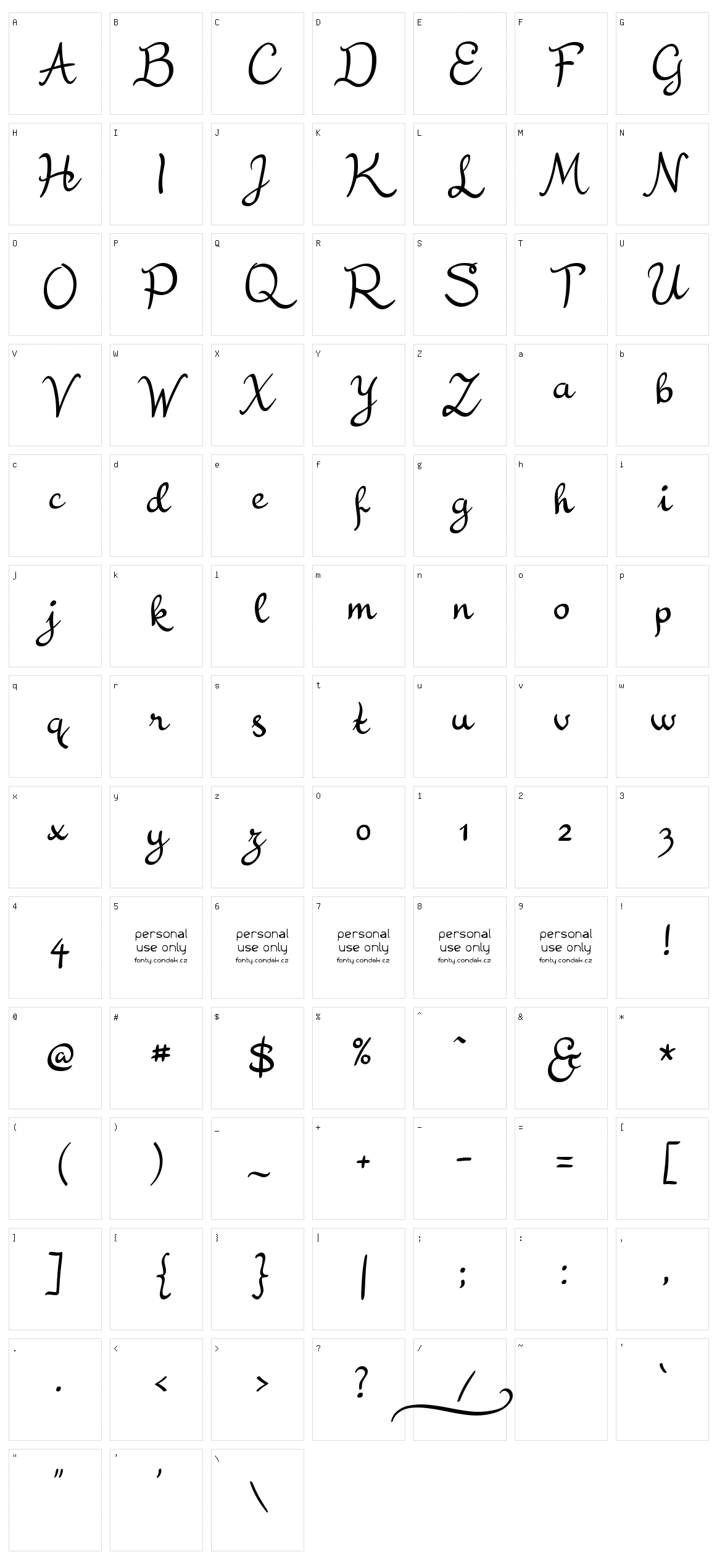
Residu?ln?
Designed by: V?t ÄŒond?k
Residuální
by Vít Èondák
The public version of the font intentionally does not include numbers 5 to 9.
A curly font immitating brush calligraphy with really big upper case characters.
The big underline swash is mapped as tilde character (~).
Veøejná verze fontu zámìrnì neobsahuje èíslice 5 až 9.
Zvlnìný font v písmomalíøském stylu se skuteènì velkými (ehm) písmeny.
Velká podtrhávací vlnovka je namapovaná jako znak tilda (~).